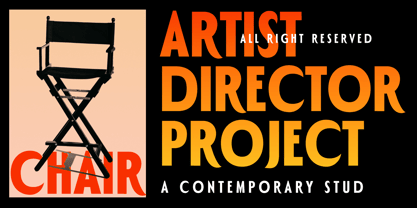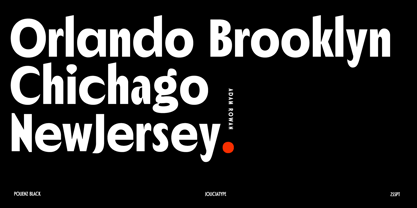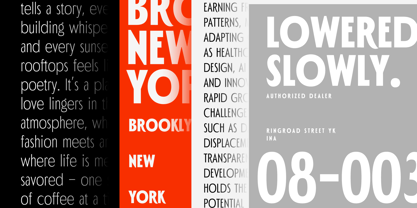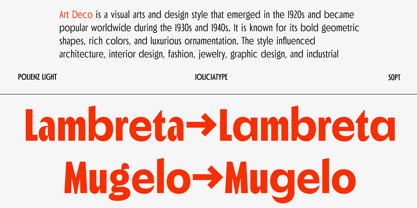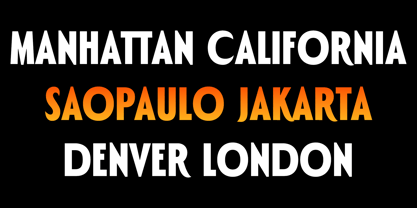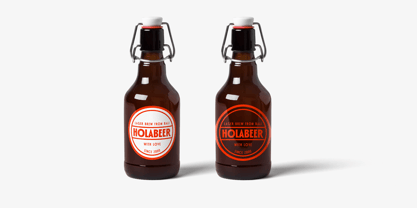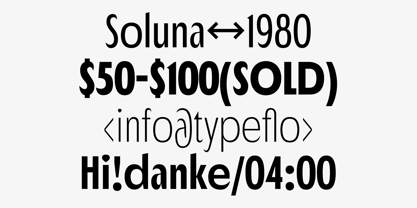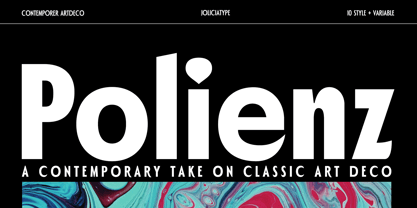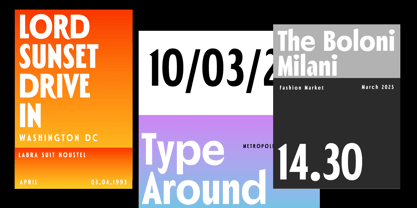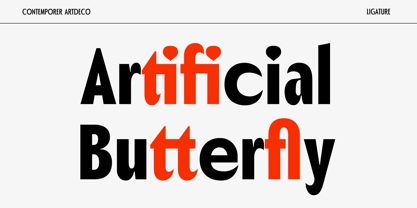
Polienz
La familia tipográfica Polienz fue diseñada por Laire Banyu y publicada por Jolicia Type. Polienz contiene 11 estilos y opciones de paquete familiar.
Polienz is a contemporary Art Deco-inspired sans serif typeface that blends vintage elegance with a modern edge. With its clean lines and bold geometric structure, Polienz brings a sophisticated flair to any design.
Featuring 10 weights, from Hairline to Black, Polienz offers full flexibility—perfect for everything from standout headlines and stylish logos to editorial layouts and refined branding projects.
Its balanced aesthetic makes Polienz a great choice for packaging, fashion, posters, or any creative work that calls for a touch of timeless class with a modern twist.